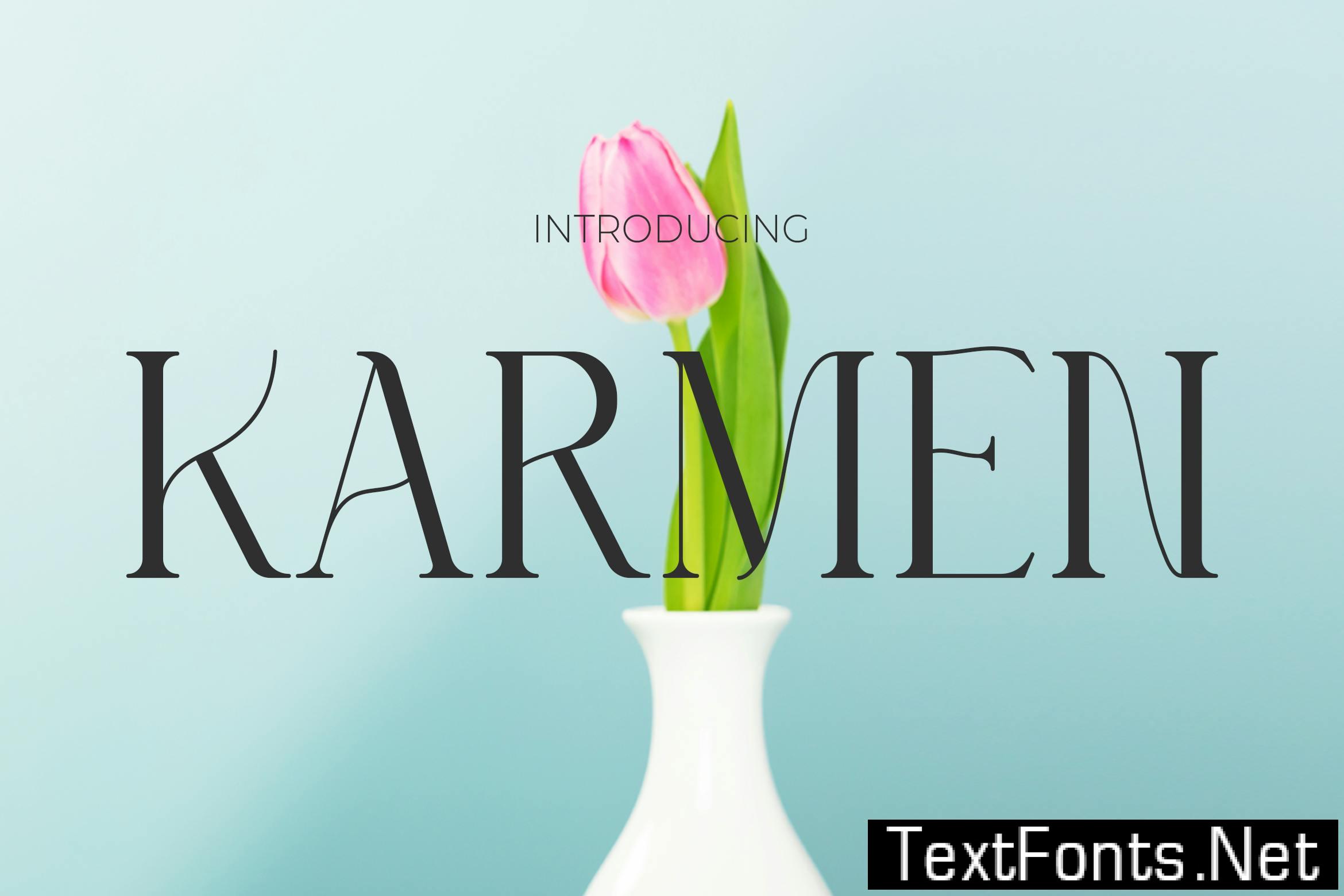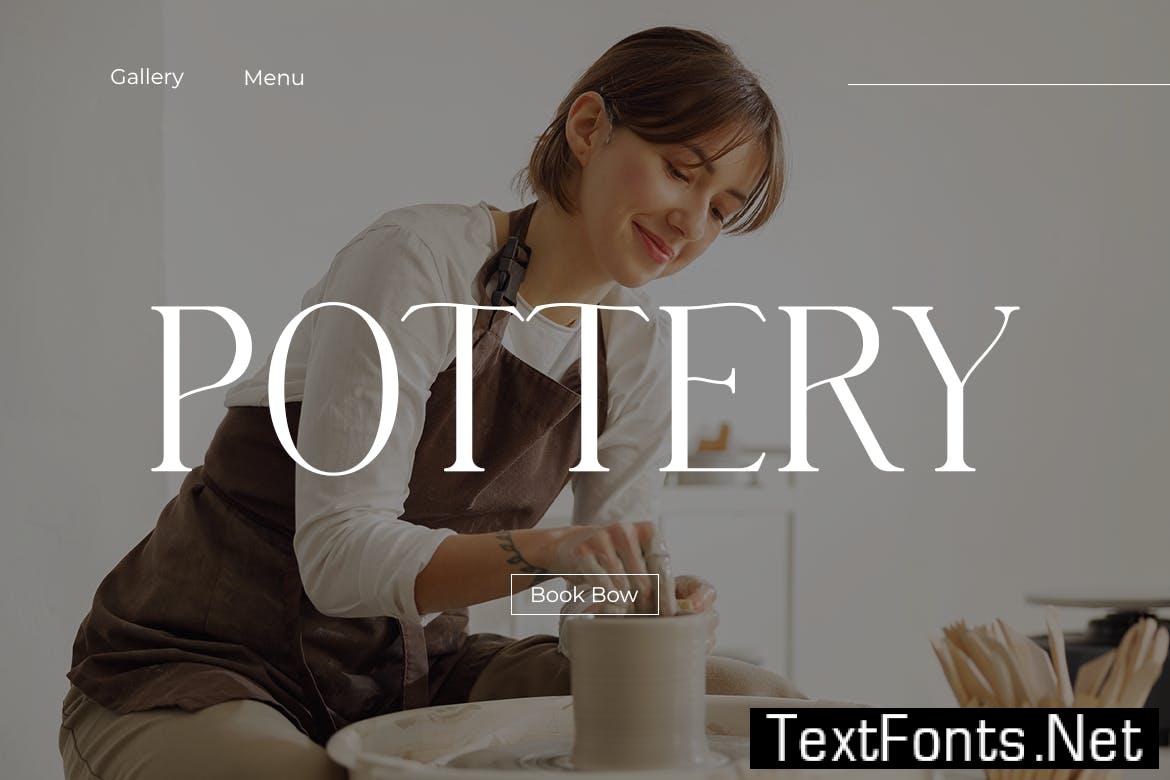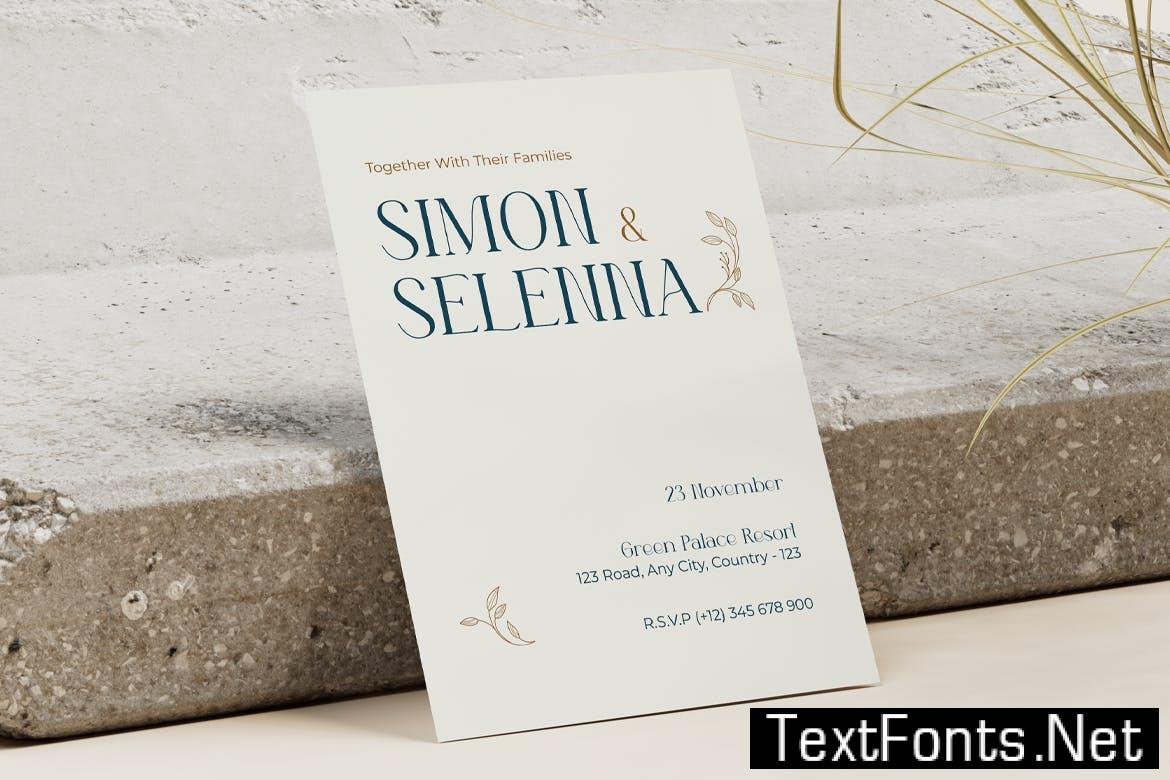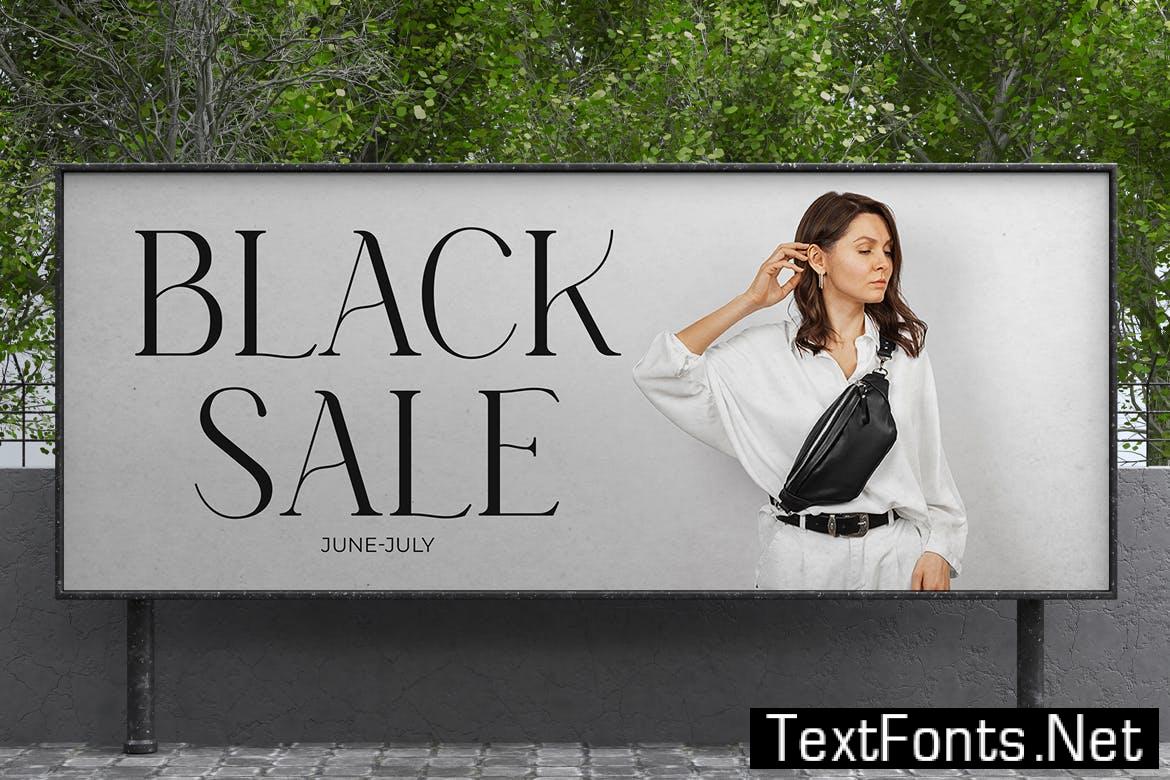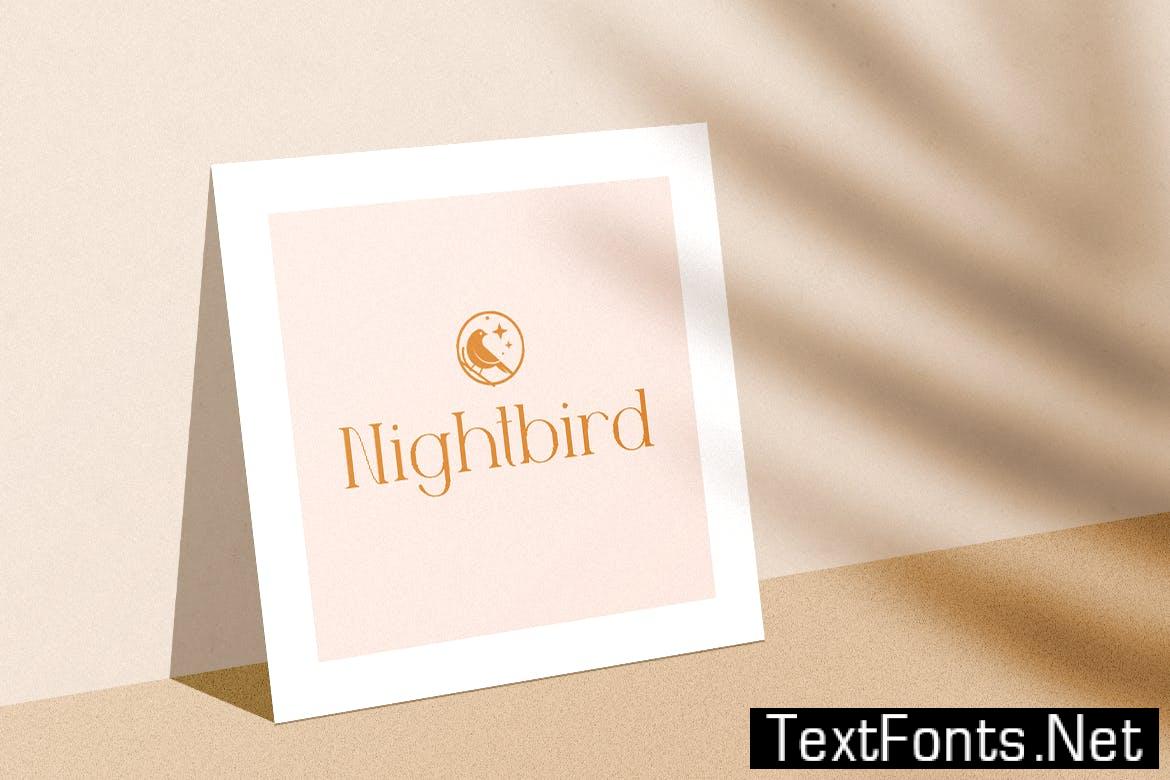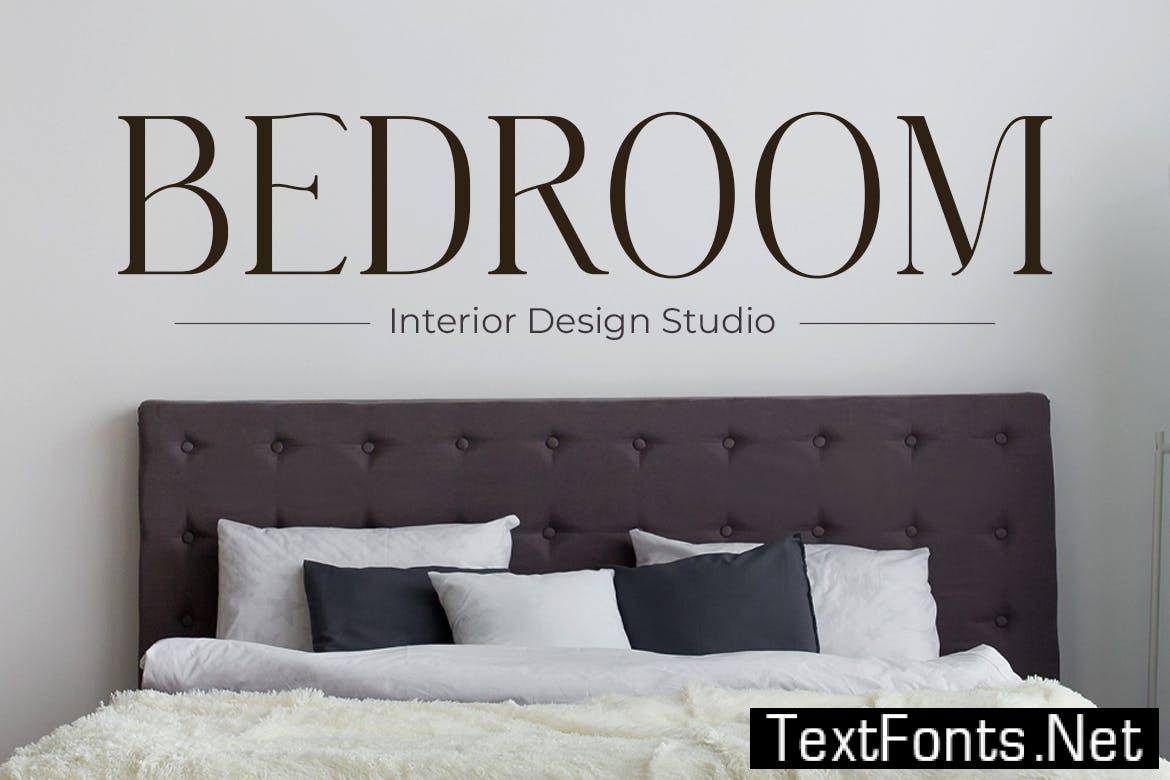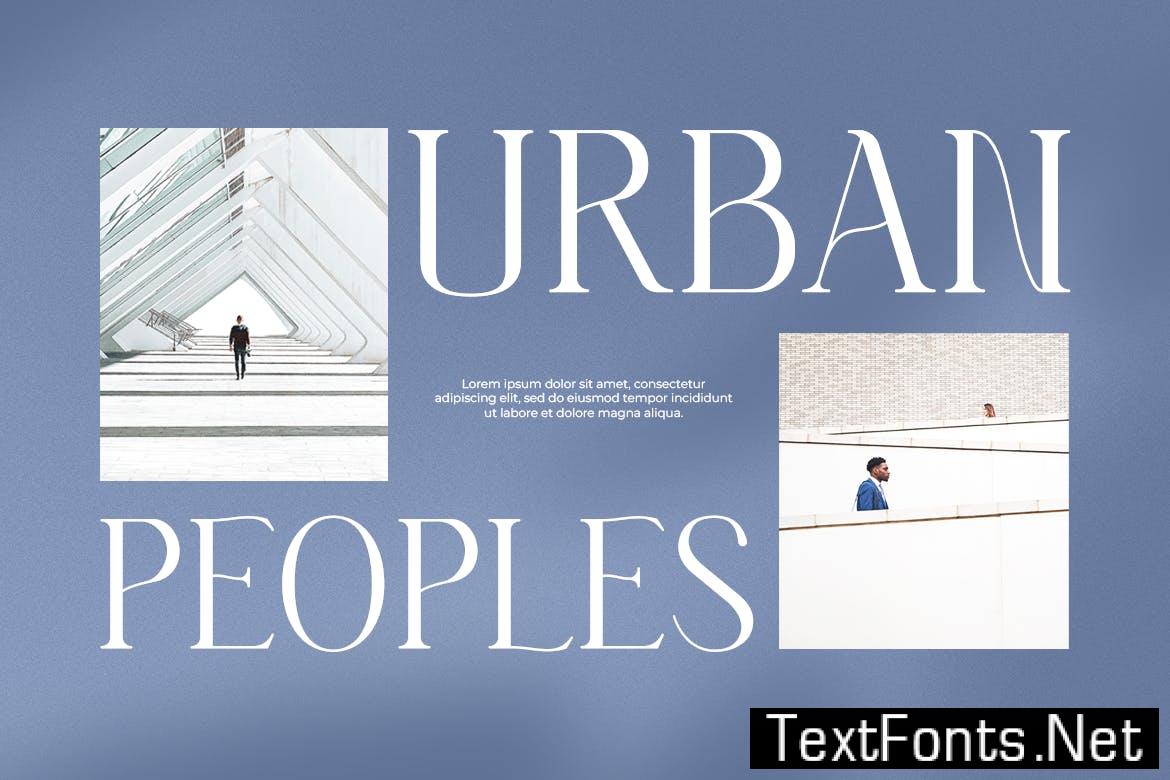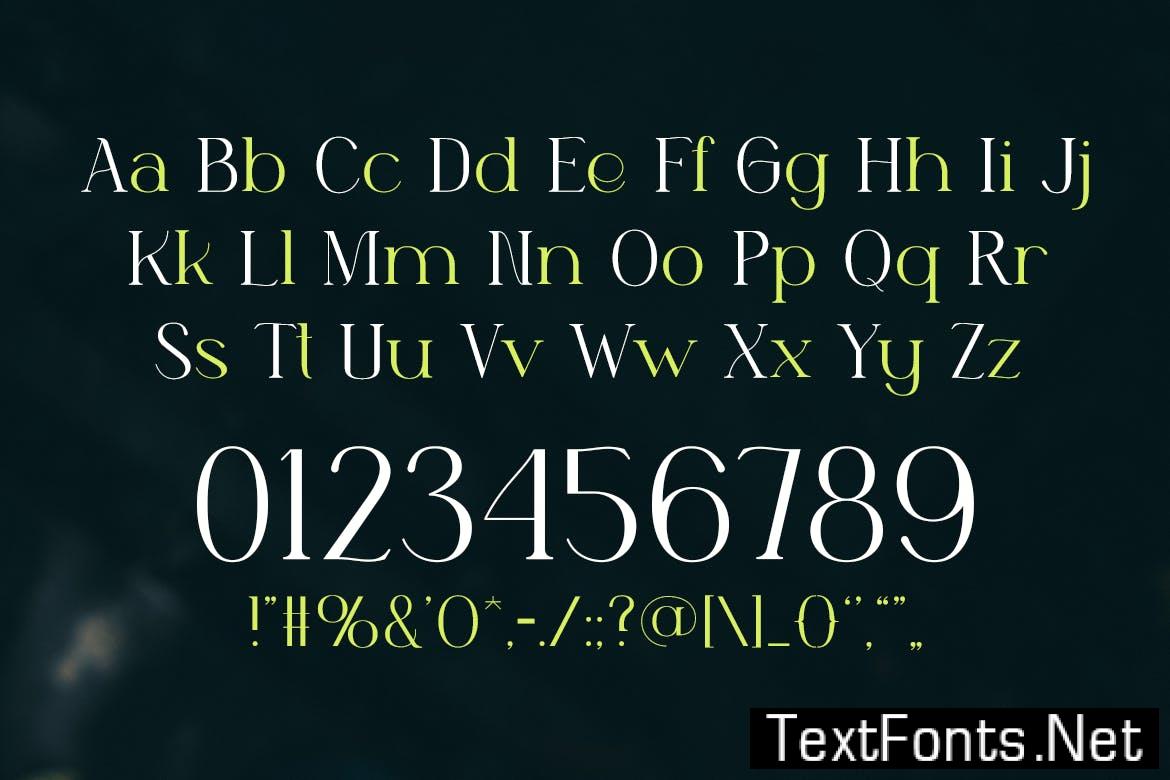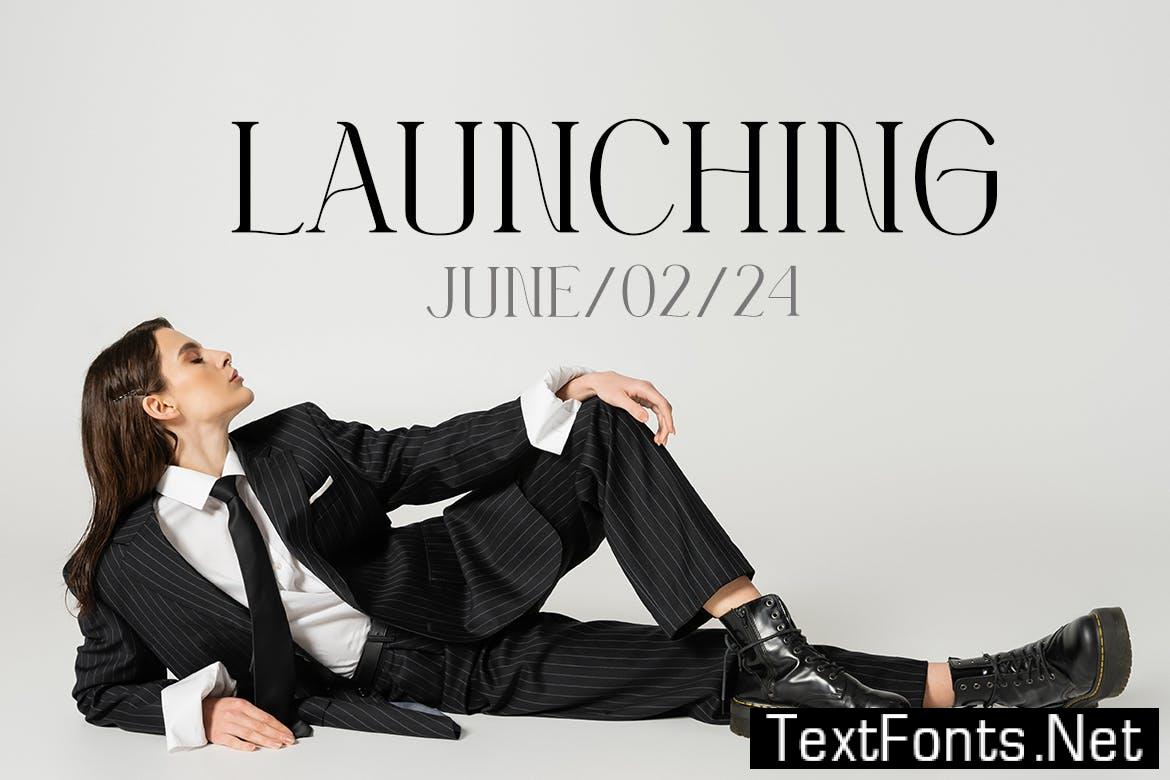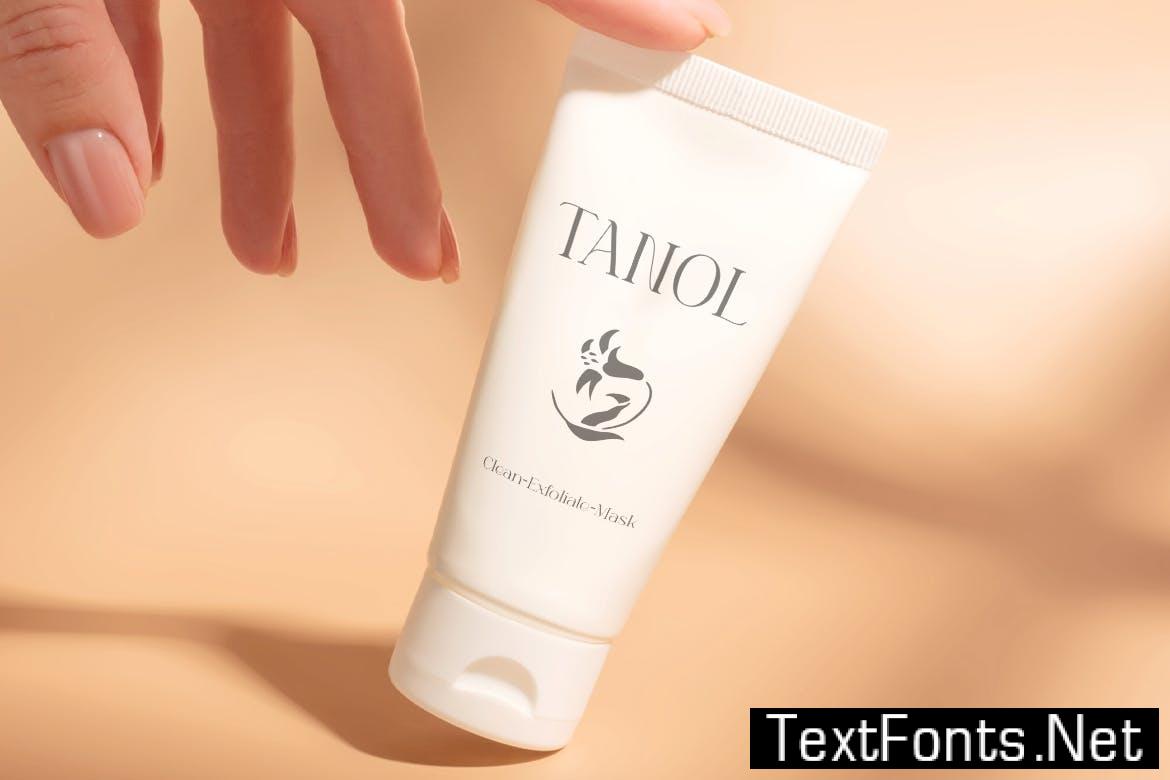
Karmen – Modern Elegance Font XAF9CAR
Karmen is a modern serif font that exemplifies elegance in every curve. Designed to elevate the aesthetic of any project, Karmen combines the timeless appeal of serif typography with a modern twist, making it ideal for a wide range of applications. Whether crafting logos that stand out with sophistication, enriching quotes with an elegant touch, or designing invitations that convey a sense of exclusivity, Karmen delivers with style. Its refined look enhances posters and greetings, while its upscale vibe is perfect for branding and packaging. For covers, events, headlines, and advertising, Karmen ensures your messages not only attract attention but also maintain a polished and professional appearance.